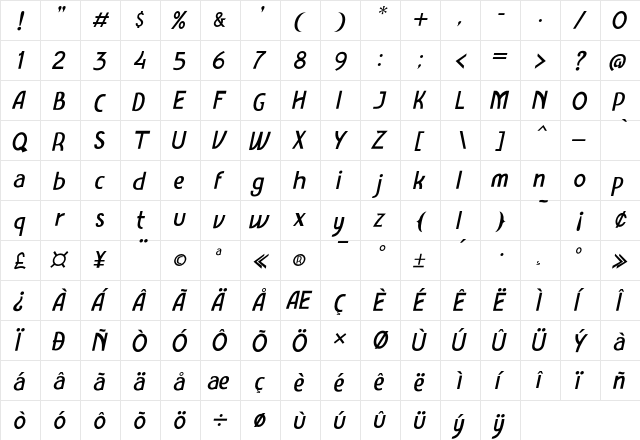
Amro Sans Italic
| Foundry | Andi Winarno - INKsTYPIA |
| Designer | Andi Winarno |
Design Context for Amro Sans Typeface
Amro Sans is a composed and adaptable typeface that performs quietly and consistently across a wide range of design contexts. The slanted form adds forward momentum and visual energy.
Pro Tip: Use Amro Sans for emphasis, pull quotes, and subheadings where its slanted energy can add rhythm to the layout.